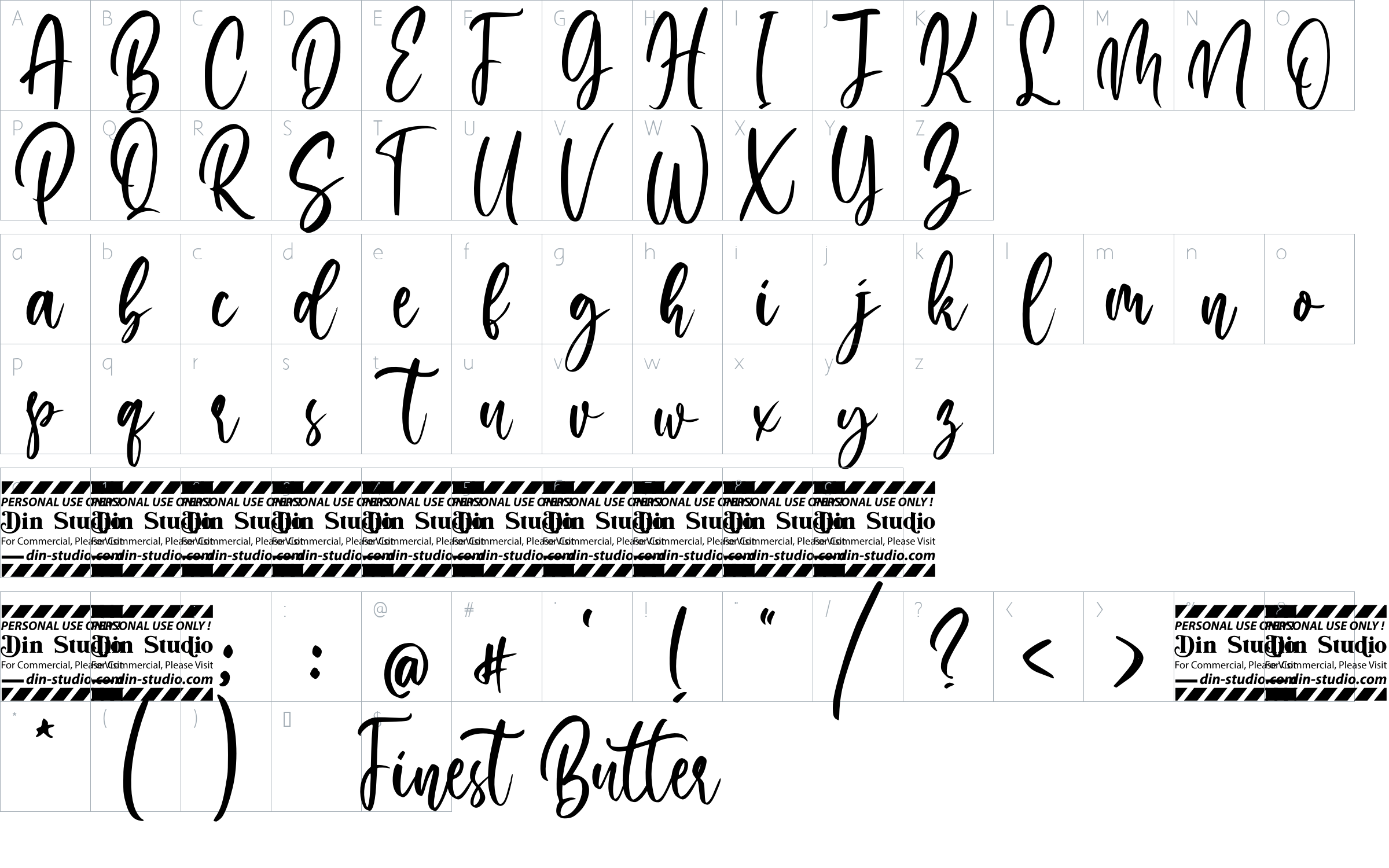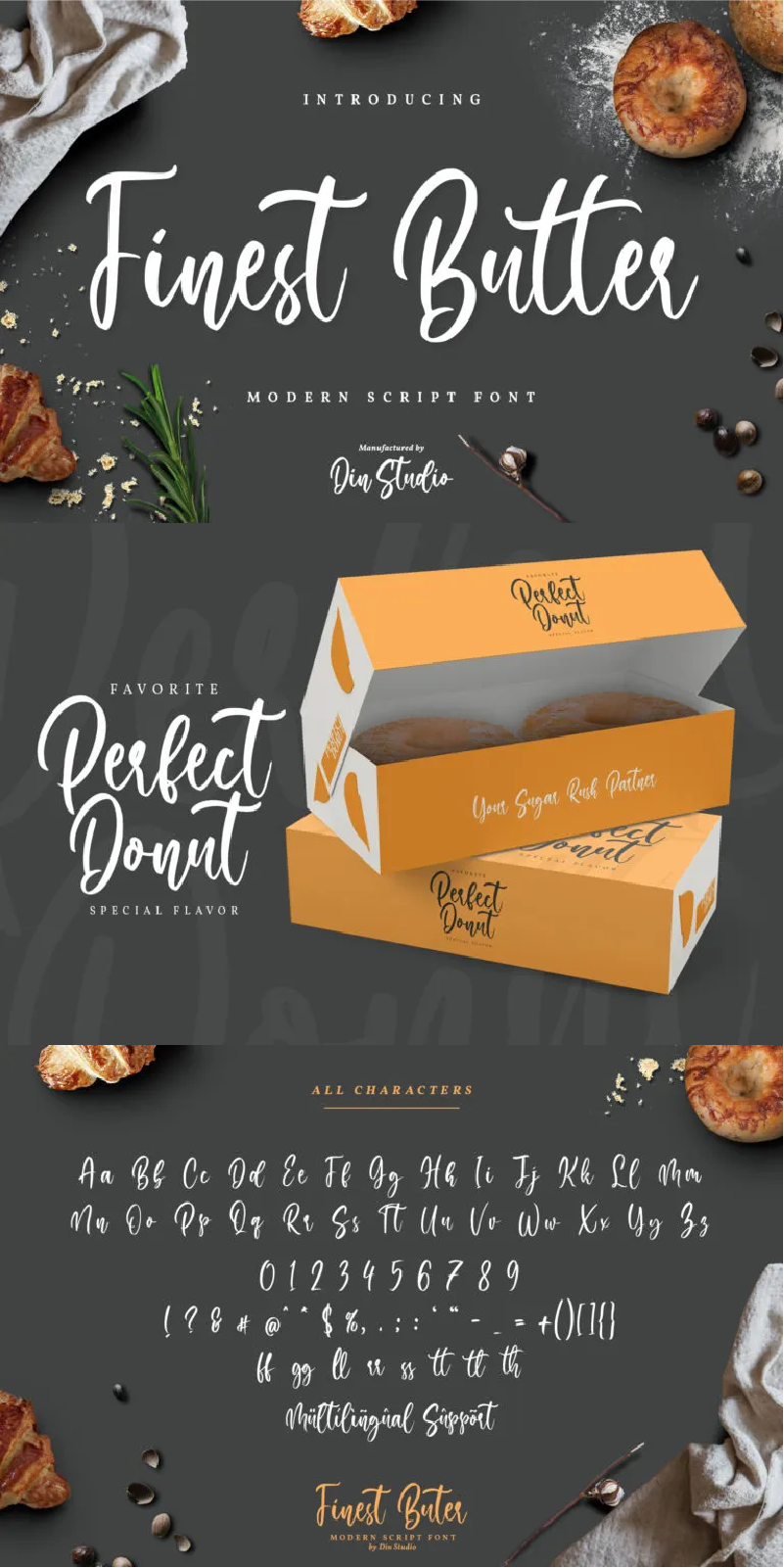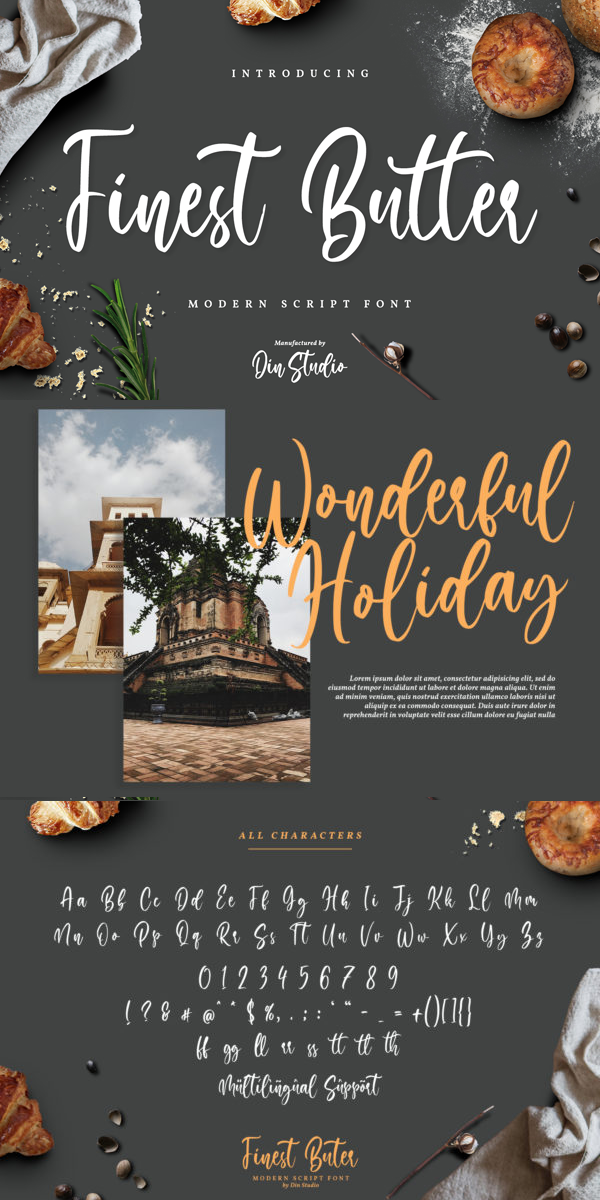
Finest Butter Font
About Finest Butter
Finest Butter is a modern script font. Made for any professional project branding. It is the best for logos, branding and of quotes. Every letter has a unique and beautiful touch. See the previews above to get some inspiration on how you can use them. Enjoy the font!